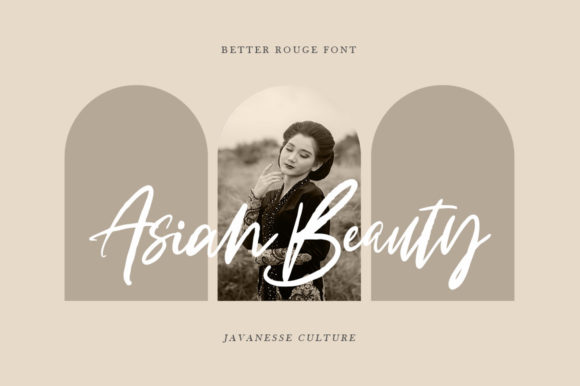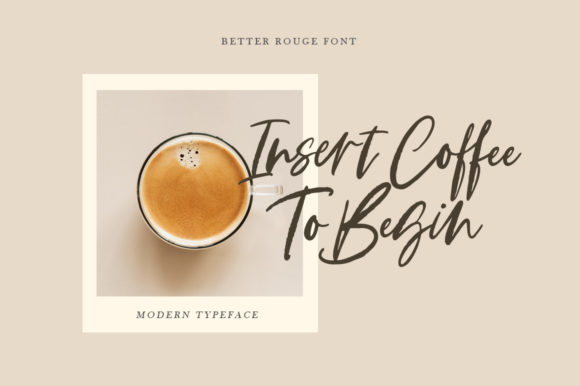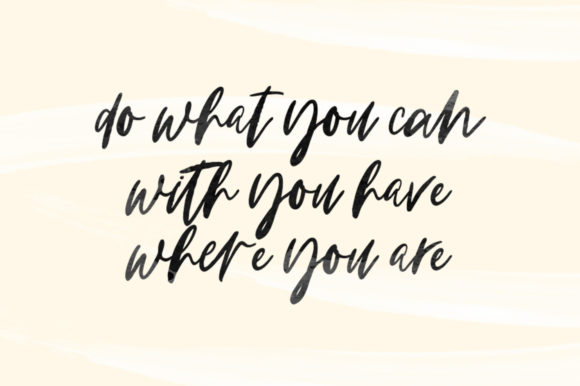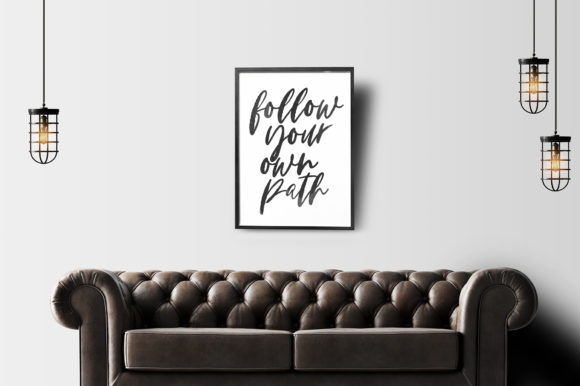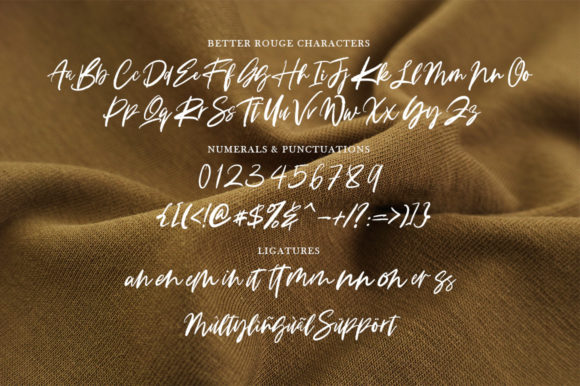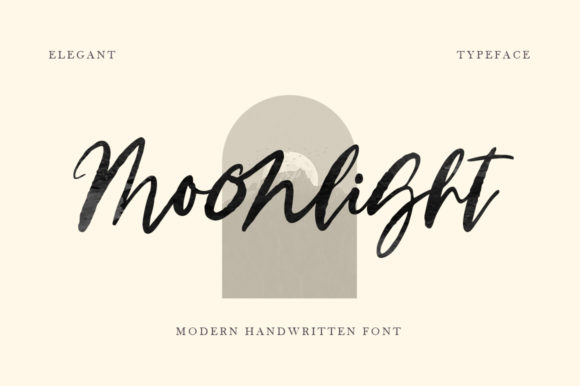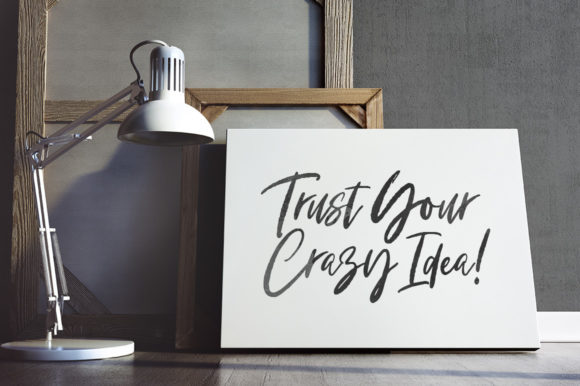
Better Rouge Font
About Better Rouge Font
Better Rouge is a stylish handwritten font that’s great for delivering any message with confidence, authenticity and charm. It will elevate a wide range of crafting ideas, from cards, to branding, labels and much more.